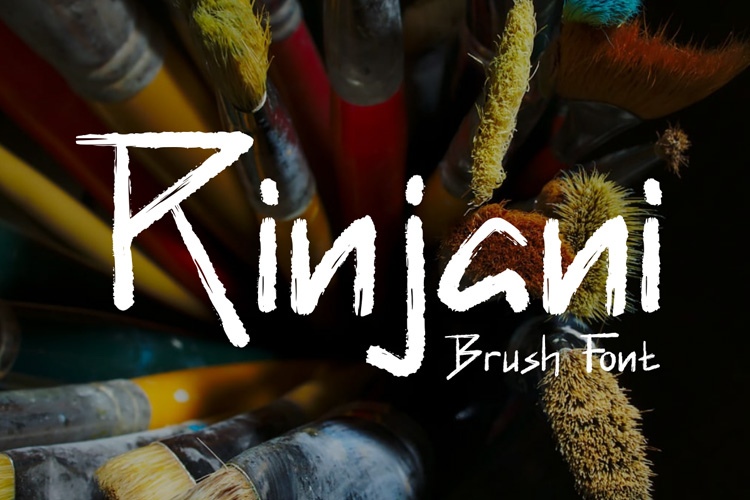
Rinjani Brush Font
Rinjani Brush Font is ideal for artistic branding projects, creative studio logos, handcrafted product packaging, bohemian lifestyle graphics, organic food labels, artisanal workshop signage, creative agency headers, and expressive poster designs.
This exciting Rinjani Brush Font flows with organic creativity and handcrafted authenticity that captures the essence of artistic expression and natural brushwork. The font's dynamic strokes and artistic character make it an exceptional choice for projects requiring creative authenticity, artistic flair, and handmade appeal that resonates with audiences who appreciate genuine craftsmanship and creative expression.
The Rinjani Brush Font family features multiple artistic variations including Regular, Bold, Light, Rough Brush, Fine Stroke, and Expressive versions, providing designers with comprehensive options for creating authentic handcrafted brand communications and artistically inspired typographic compositions with genuine brush-painted character.
Unleash creative brushwork with Rinjani Brush Font Free Download - a masterfully crafted typeface that embodies the spontaneous energy of traditional brush painting and artistic expression. This versatile font combines handcrafted authenticity with contemporary functionality, making it perfect for brands and projects that need to communicate creativity, artisanal quality, and authentic artistic vision.
The artistic character of Rinjani Brush Font makes it particularly valuable for creative agencies, artisanal producers, art studios, and lifestyle brands that need to convey creativity, authenticity, and handcrafted quality. Its brushed styling appeals to audiences who appreciate artistic expression, handmade products, and creative authenticity in their brand experiences.
Creative professionals choose Rinjani Brush Font for its authentic artistic atmosphere and exceptional visual impact across various creative applications. The font maintains its handcrafted charm from small product labels to large artistic installations, ensuring consistent creative branding and artistic appeal throughout all handmade communications.
The distinctive personality of Rinjani Brush Font creates immediate emotional connections through powerful associations with artistic creativity, handcrafted quality, and authentic expression. This makes it invaluable for brands seeking to leverage artistic authenticity and creative craftsmanship for marketing campaigns and artistically focused brand positioning.
Artisanal brands utilize Rinjani Brush Font to establish creative identities that communicate artistic vision, handcrafted quality, and creative authenticity in competitive creative markets. The typeface's brush appeal helps organizations differentiate themselves while attracting consumers who value artistic expression, handmade products, and authentic creative experiences in their lifestyle and purchasing decisions.